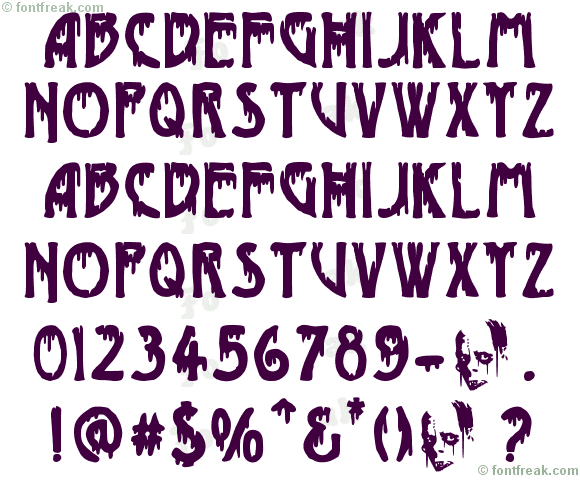
Phantom of the Opera
The Phantom of the Opera font by woodcutter Manero is a unique display typeface that captures the essence of its theatrical namesake. This font features a distinctive decorative style, characterized by its irregular, dripping strokes that evoke a sense of mystery and drama. The stroke weight varies throughout, creating a captivating contrast that draws attention while maintaining legibility. The spacing between letters is thoughtfully designed to balance the artistic flair with readability, making it an excellent choice for impactful designs.
Ideal for a variety of creative applications, the Phantom of the Opera font shines in contexts such as movie posters, where its dramatic flair can evoke emotion and intrigue. It is also perfect for theatrical programs, capturing the essence of live performances. Additionally, this font can be effectively utilized in Halloween-themed invitations or events, enhancing the spooky ambiance. Small business owners looking to create memorable branding for niche markets, such as gothic-themed cafes or costume shops, will find this typeface particularly appealing. Graphic designers and content creators seeking to add a touch of theatricality to their projects will appreciate the unique character this font brings.
The Phantom of the Opera font free download offers a fantastic opportunity for users to incorporate this striking typeface into their design toolkit without any cost. What sets this font apart is its ability to convey emotion and narrative through its artistic design. With its blend of elegance and eeriness, it stands out in a crowded field of typefaces, making it a perfect choice for anyone looking to make a bold statement in their work. Whether you’re crafting a haunting invitation or an eye-catching promotional piece, this font will undoubtedly leave a lasting impression.